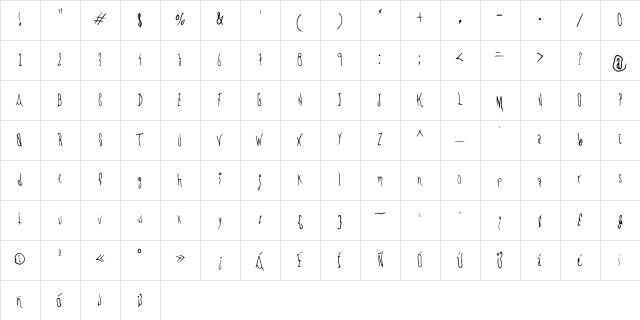
CHEMOs Font Regular
Design Context for CHEMOs Font Typeface
CHEMOs Font is a composed and adaptable typeface that performs quietly and consistently across a wide range of design contexts.